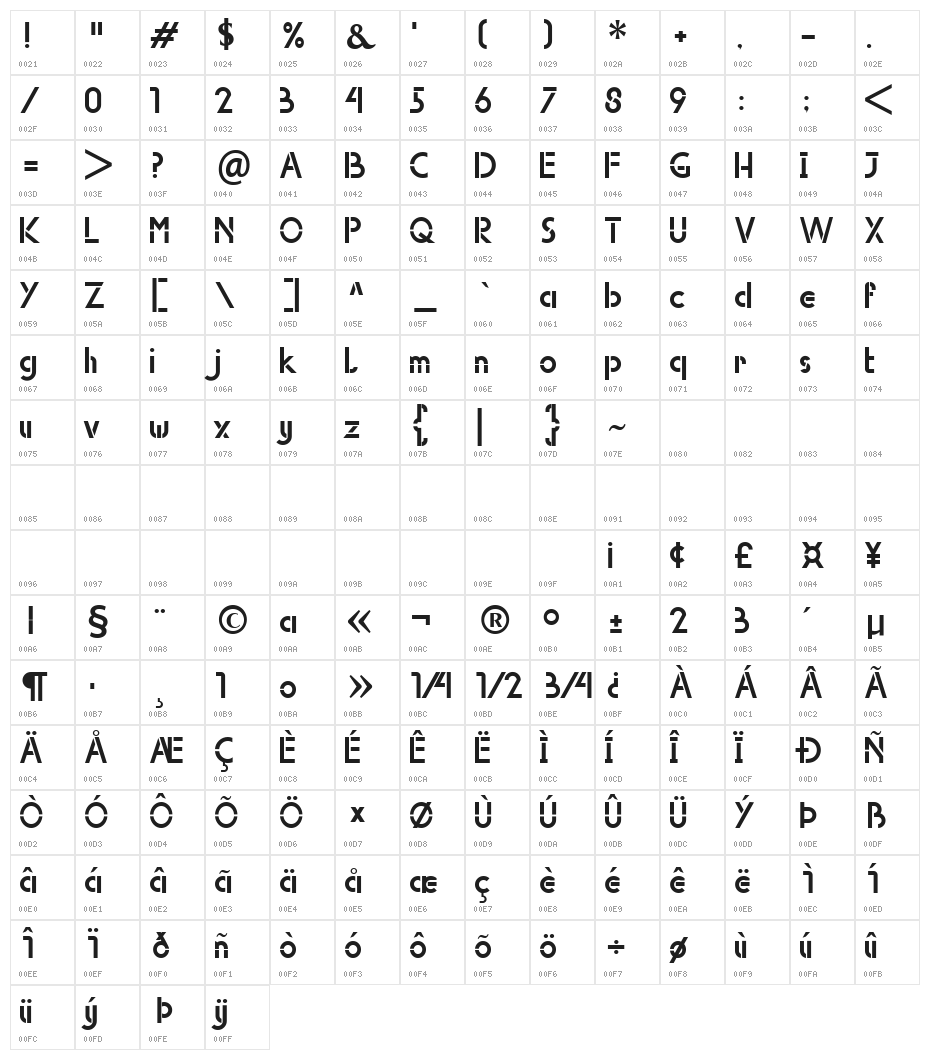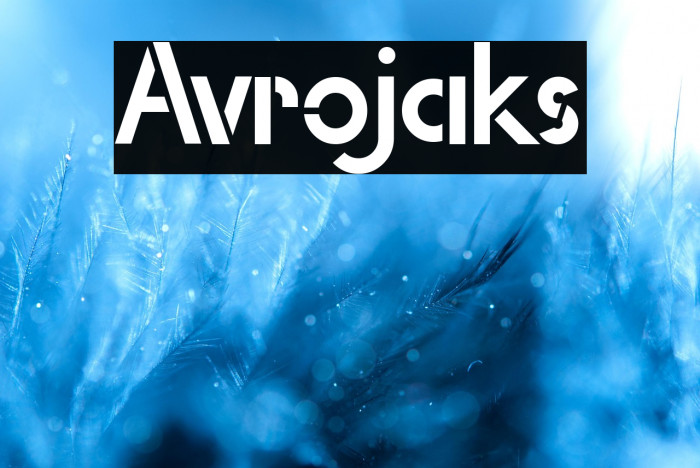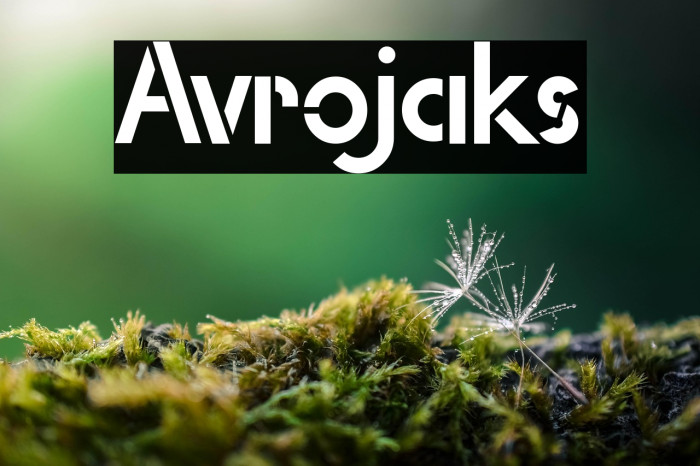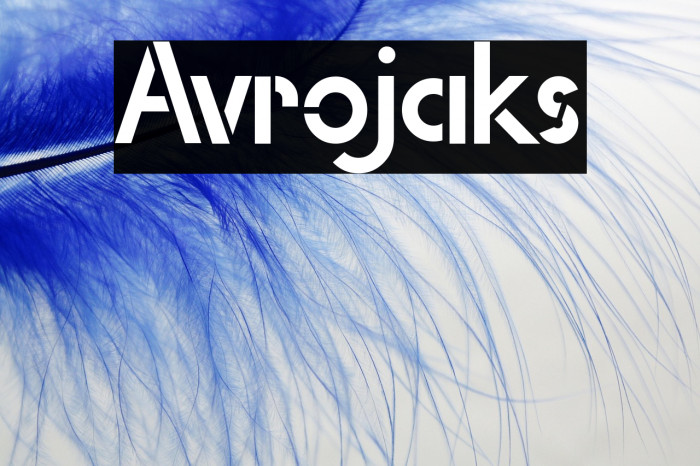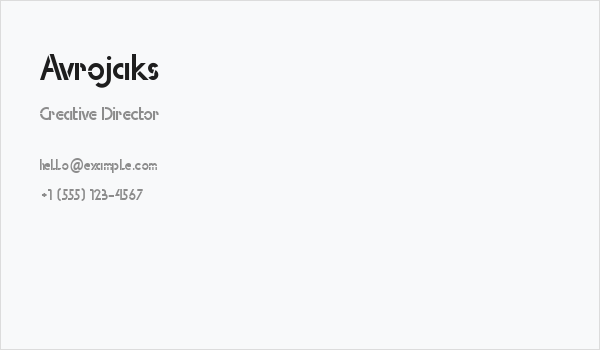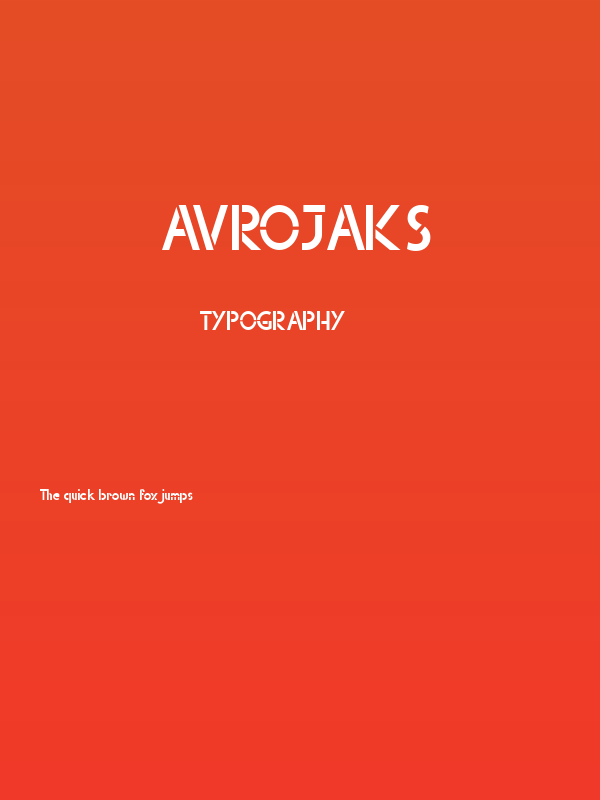
Avrojaks Font
Avrojaks Description
This font features a bold, geometric design with a modern and futuristic aesthetic. The characters are constructed with sharp angles and clean lines, creating a sense of precision and strength. The uppercase letters are particularly striking, with unique cutouts and shapes that add a distinctive flair. The lowercase letters maintain the same geometric style, ensuring consistency throughout the typeface. Numbers and special characters are designed to match the bold and angular theme, making this font suitable for a variety of creative applications.
| Proposed Projects | Ideal for branding, posters, headlines, and any project requiring a strong, modern aesthetic. |